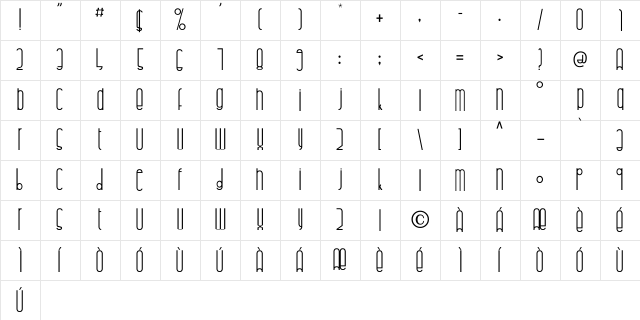
highalto Regular
Design Context for highalto
highalto is a composed and adaptable typeface that performs quietly and consistently across a wide range of design contexts.